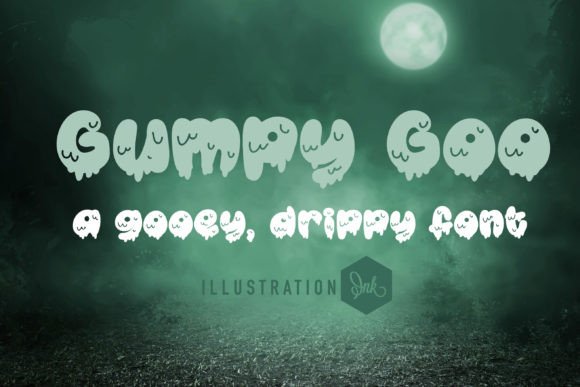
Feast your creative eyes on the wondrous Gumpy Goo font, a genuine masterpiece from the font forge of Illustration Ink. This modern display font bursts with boldness and drama, demanding attention with its dripping, gooey texture that oozes off the page, captivating all who lay their eyes upon it.
Gumpy Goo is the ideal weapon in the arsenal of daring designers, whether you're crafting edgy branding, eye-catching product packaging, or any endeavor craving utmost attention. It's the perfect font to make your message stick, whether in print or digital realms.
With Gumpy Goo, you're not just downloading a font; you're acquiring a versatile tool that empowers you to unleash your creativity and make a lasting impact. Let your imagination run wild as you explore the endless possibilities, from quirky logos to standout posters and everything in between.
Don't settle for ordinary fonts that blend into the background. Embrace the boldness of Gumpy Goo, a font destined to make your designs shine and leave an indelible mark on your audience. Experience the thrill of standing out from the crowd with this remarkable creation that breathes life into your designs.
Transform your design projects into captivating masterpieces with the Gumpy Goo font. Dive into the world of dripping gooeyness and let your creativity ooze onto the page. Make your designs unforgettable with this exceptional font that's guaranteed to turn heads and leave a lasting impression.